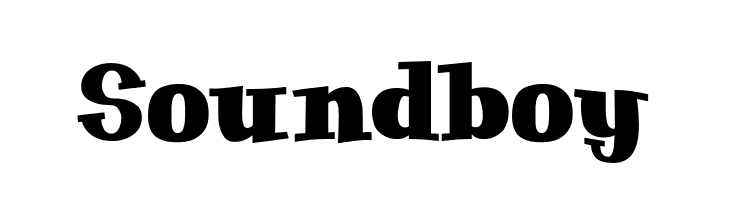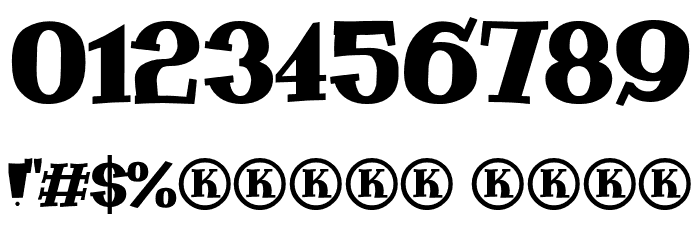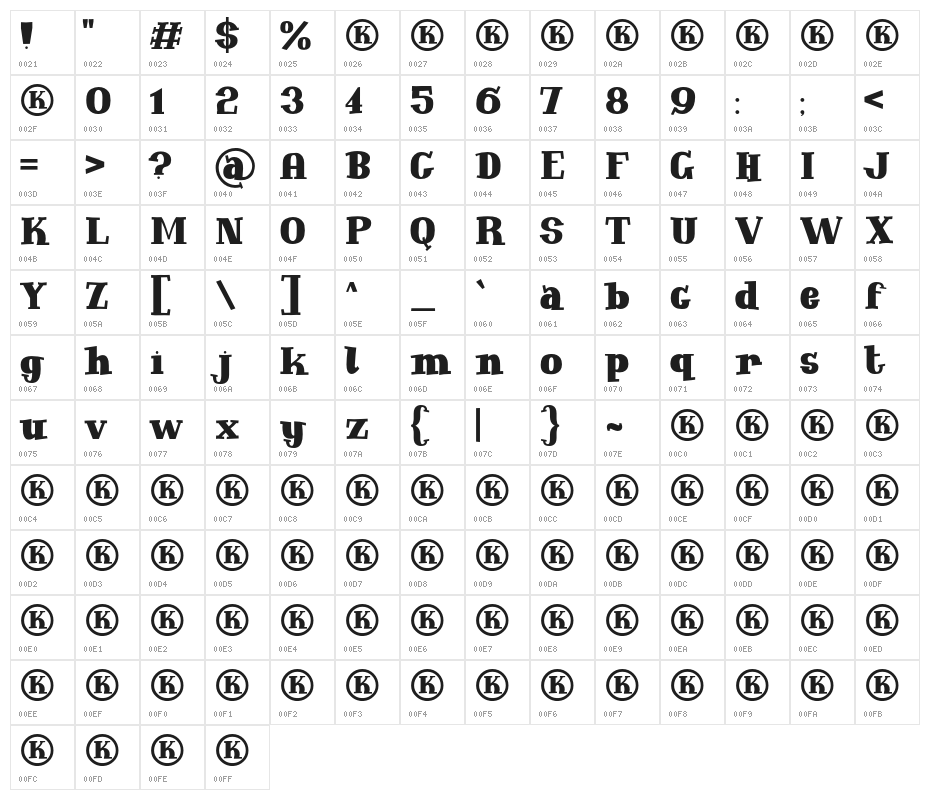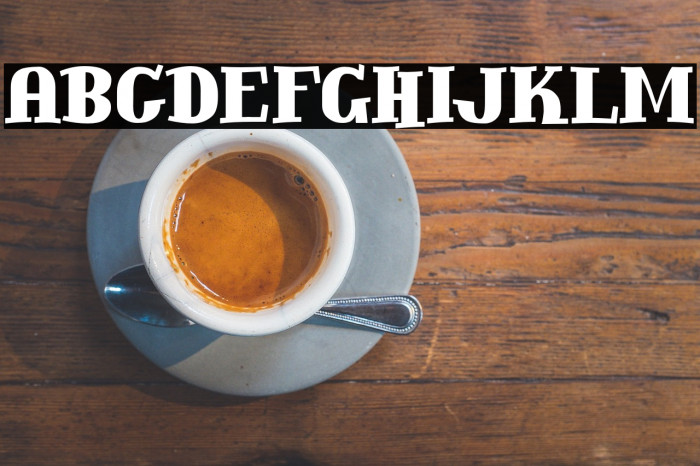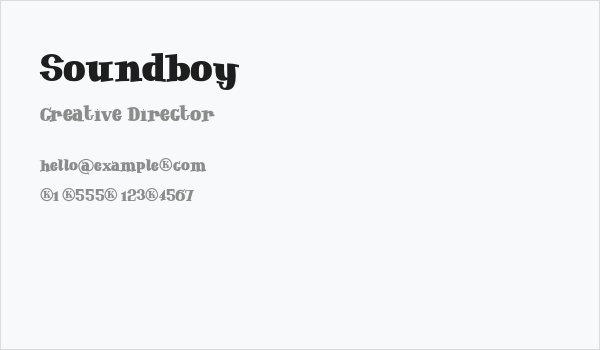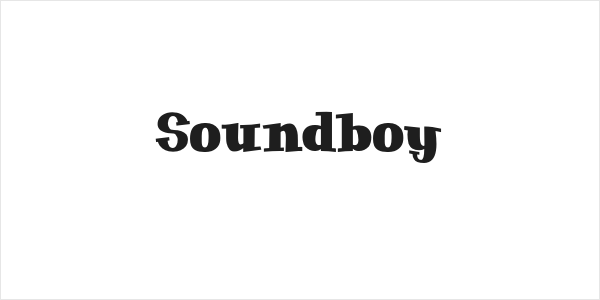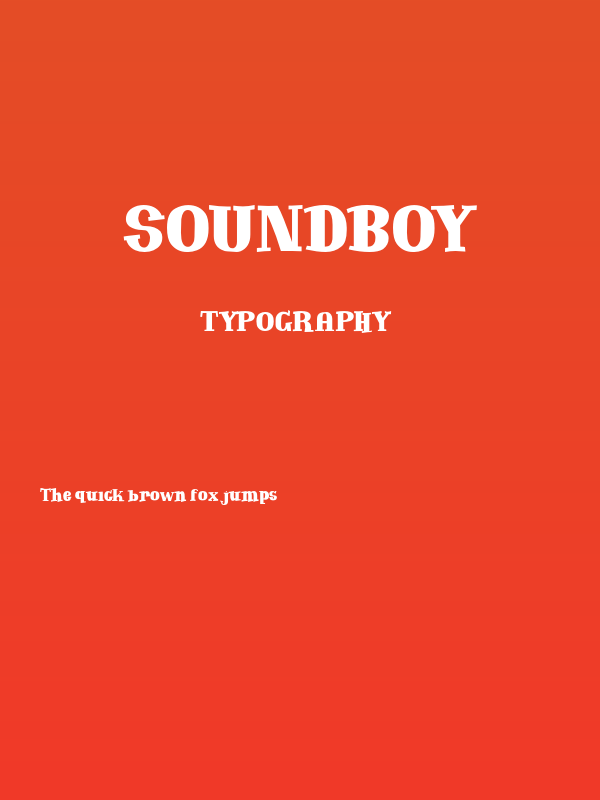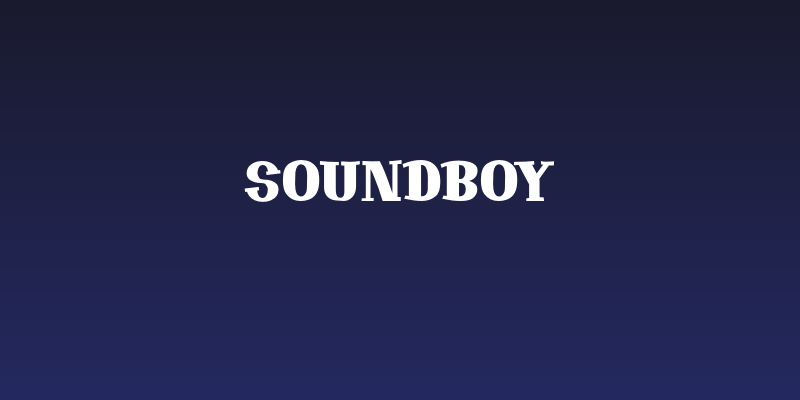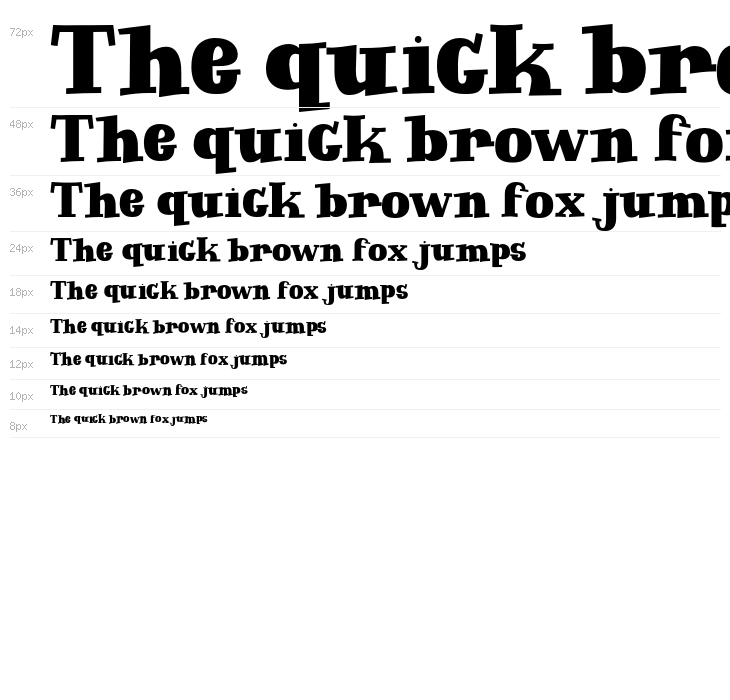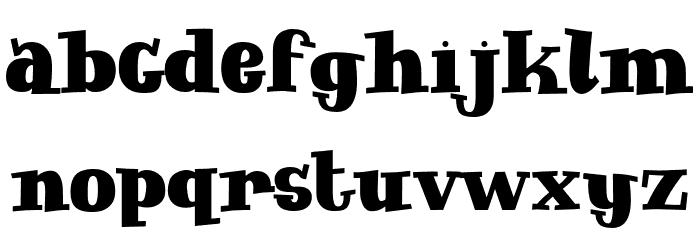
Soundboy Font
Soundboy Description
This font features a bold and playful style with a distinctive, slightly whimsical flair. The uppercase letters are robust and have a unique curvature that adds character, while the lowercase letters maintain a consistent boldness with subtle variations in stroke width. The numbers are equally bold, ensuring visibility and impact. Special characters are creatively designed, adding to the font's overall playful aesthetic. This font is ideal for projects that require a strong, eye-catching typeface with a touch of fun.
| Proposed Projects | Ideal for posters, children's books, playful branding, and creative advertising. |